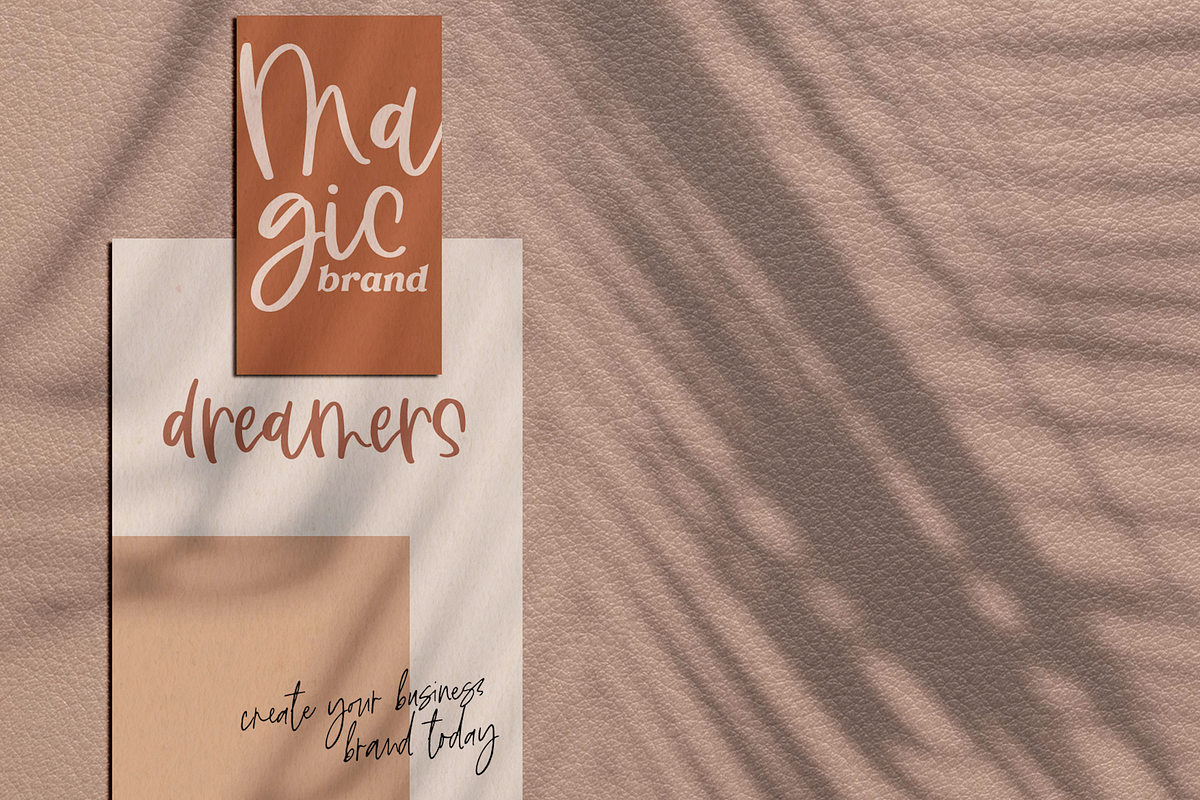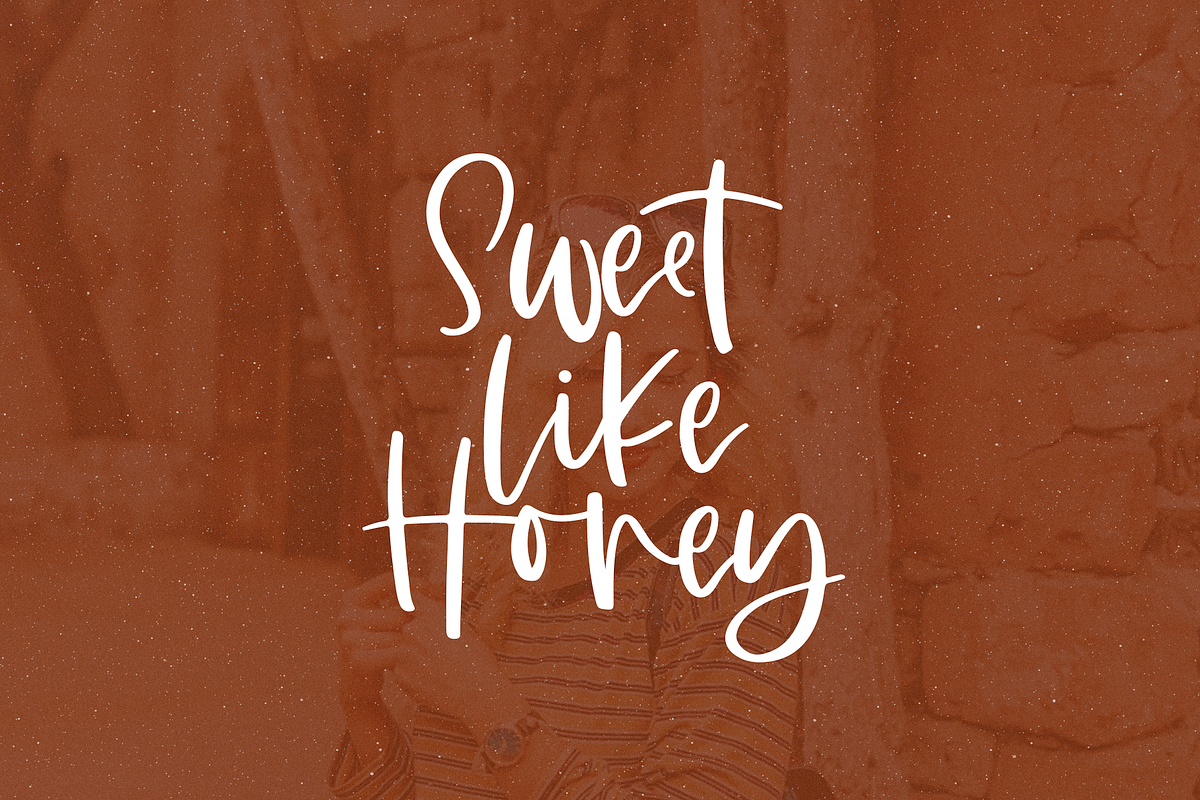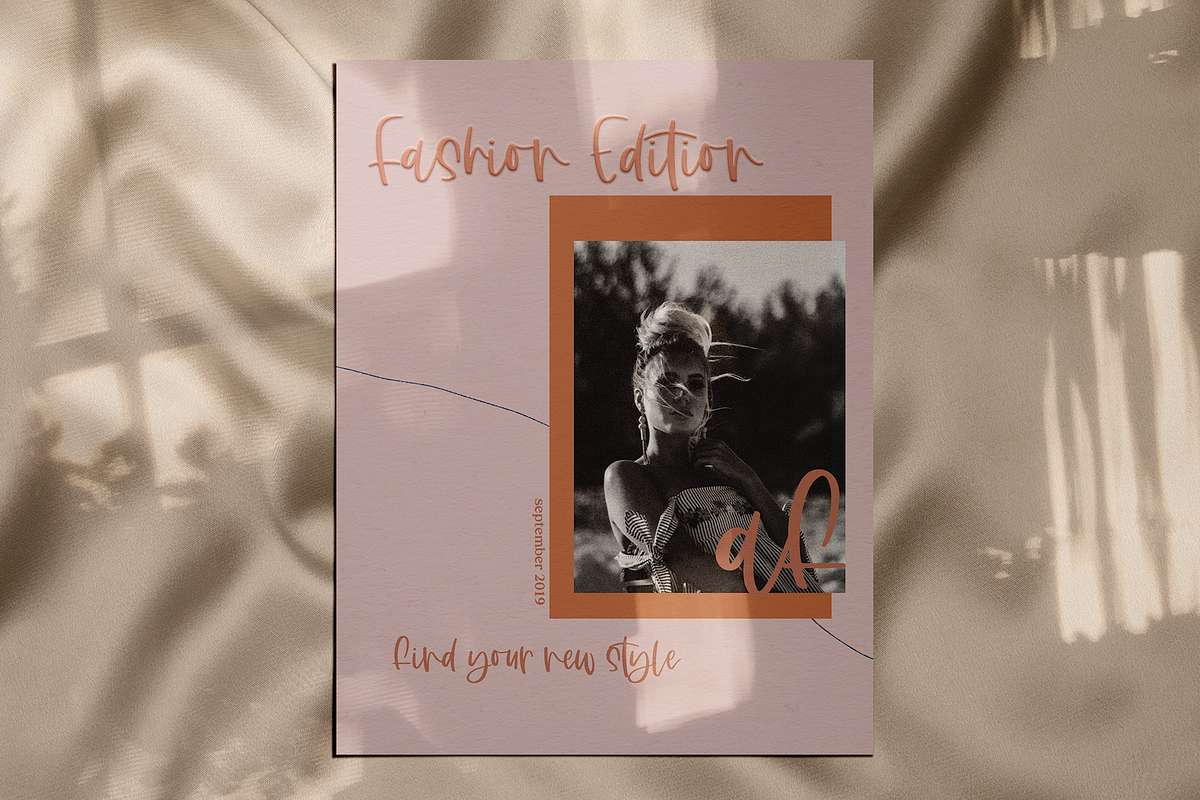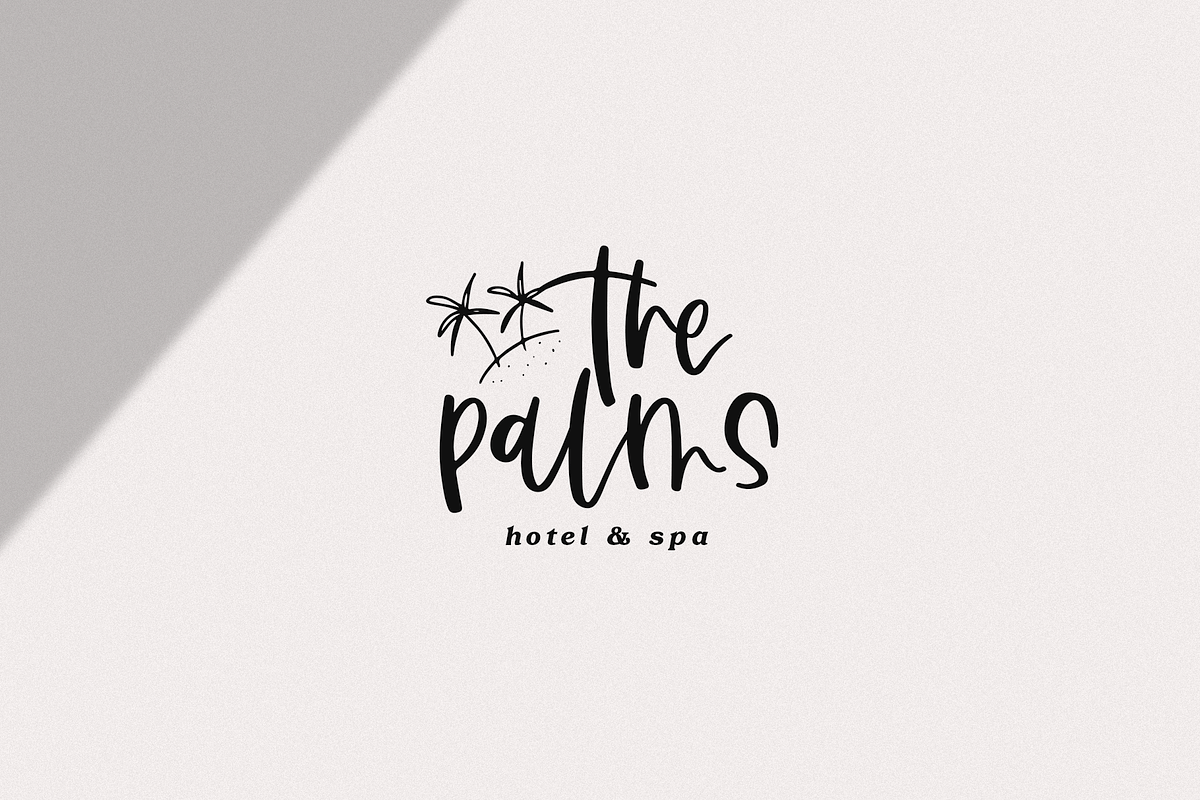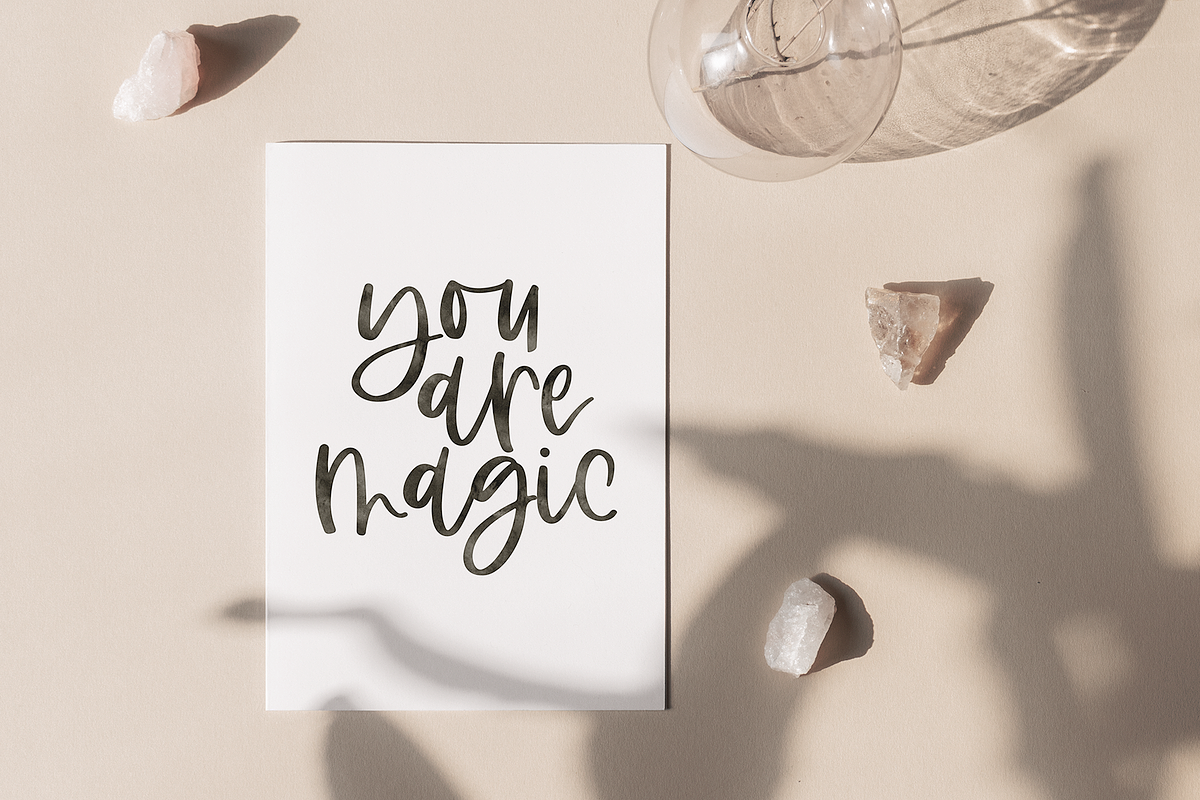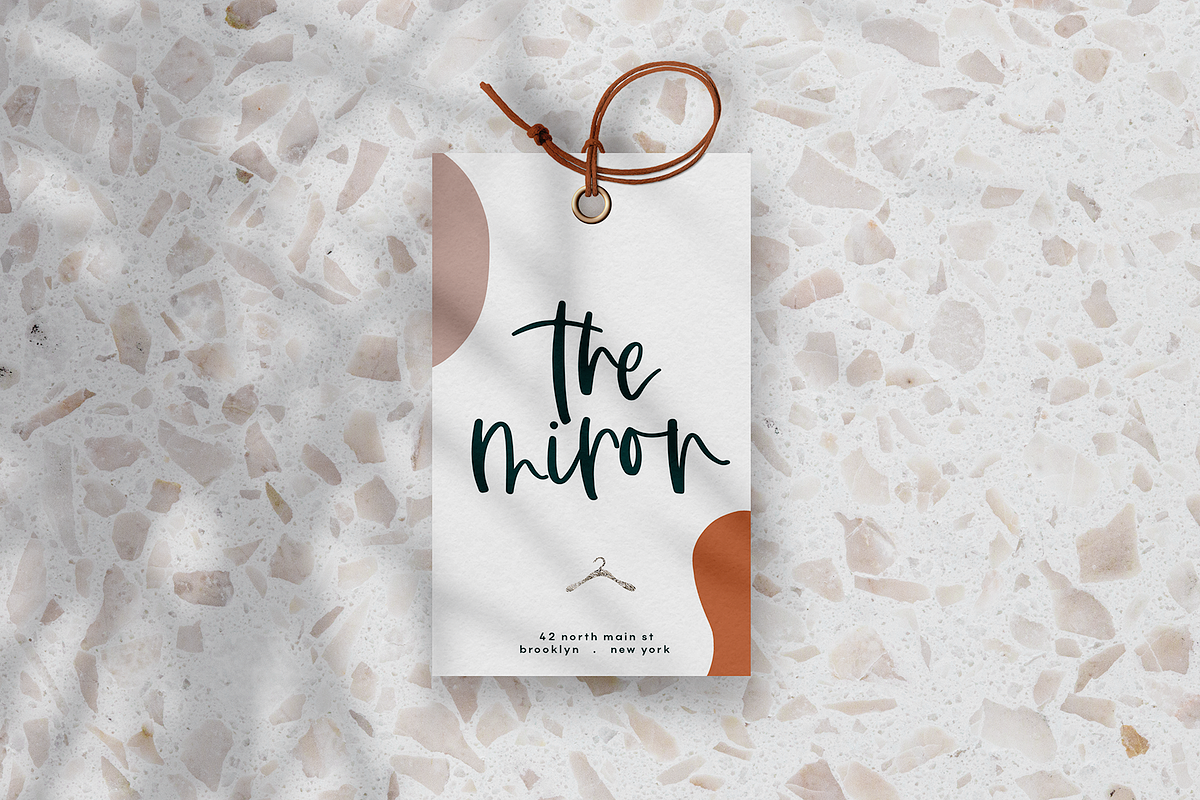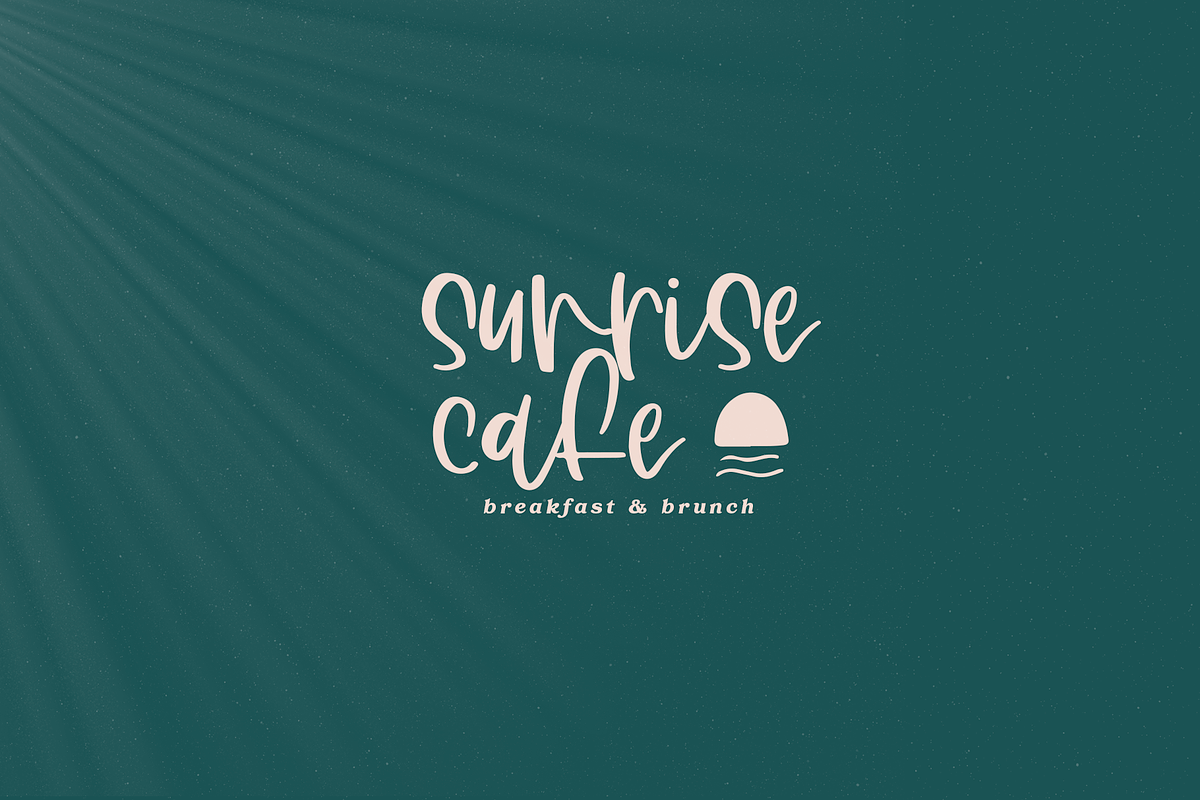
Moonlight - Handwritten Script Font
Moonlight is a carefree, handwritten script font. This font has a fun bohemian vibe.
This font is perfect for modern projects, headings, blogs, logos, brandings, invitations, and more!
Most accent characters are included.